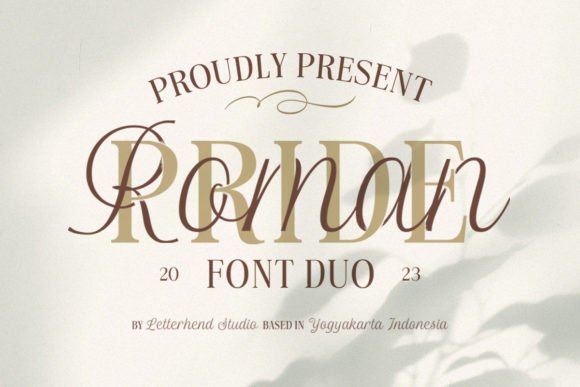
Are you looking for a stylish and fresh font duo that will elevate your designs to the next level? Look no further than Roman Pride Duo Font! This display font family, created by letterhend, features an elegant serif font and a charming script font that perfectly complement each other.
With Roman Pride, you can create a perfect harmony of classic and modern design in all of your projects. Whether you're designing wedding invitations, logos, magazines, books, packaging, fashion, makeup, stationery, or even novels, this versatile font will add a touch of sophistication and charm to your work.
With its sleek and stylish design, Roman Pride is sure to capture the attention of your audience and leave a lasting impression. Its elegant script font is perfect for adding a personal touch to your designs, while its versatile serif font is ideal for all your branding needs.
Don't settle for boring and predictable fonts – choose Roman Pride and let your creativity soar!